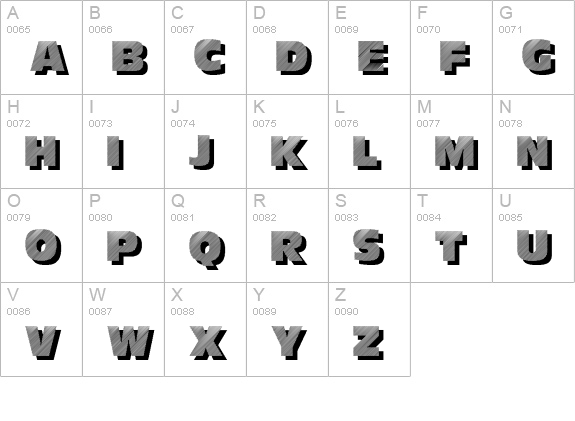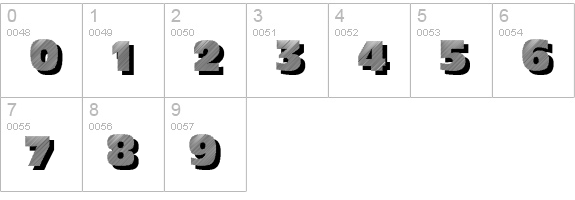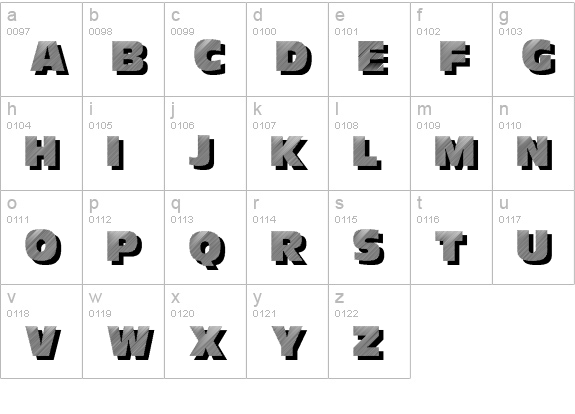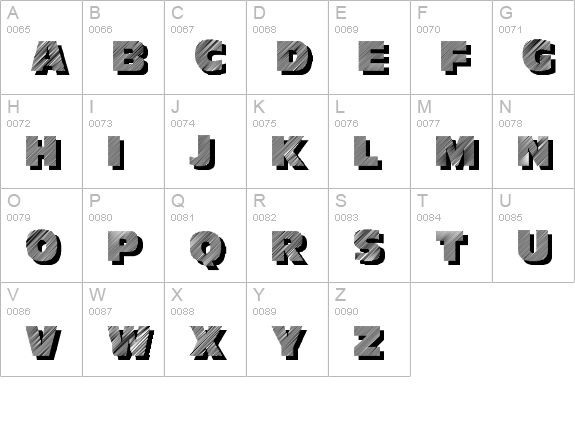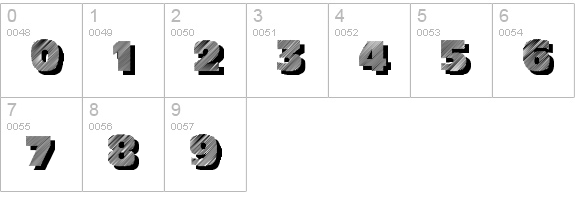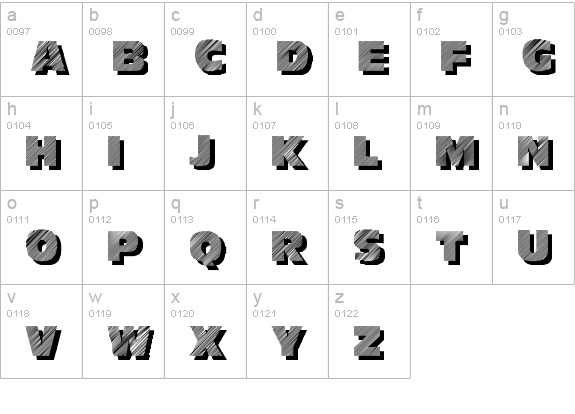
Anthracite Font Details
Anthracite font is a stylish and elegant typeface that exudes sophistication and modernity. With its sleek lines and sharp edges, Anthracite is perfect for creating eye-catching designs that demand attention. Whether you're working on a branding project, editorial design, or any other creative endeavor, Anthracite font will elevate your work to the next level. The best part? Anthracite font is completely free to download at FontsMarket.com. So you can enjoy all the benefits of this premium font without breaking the bank. Download Anthracite font today and add a touch of class to your designs.